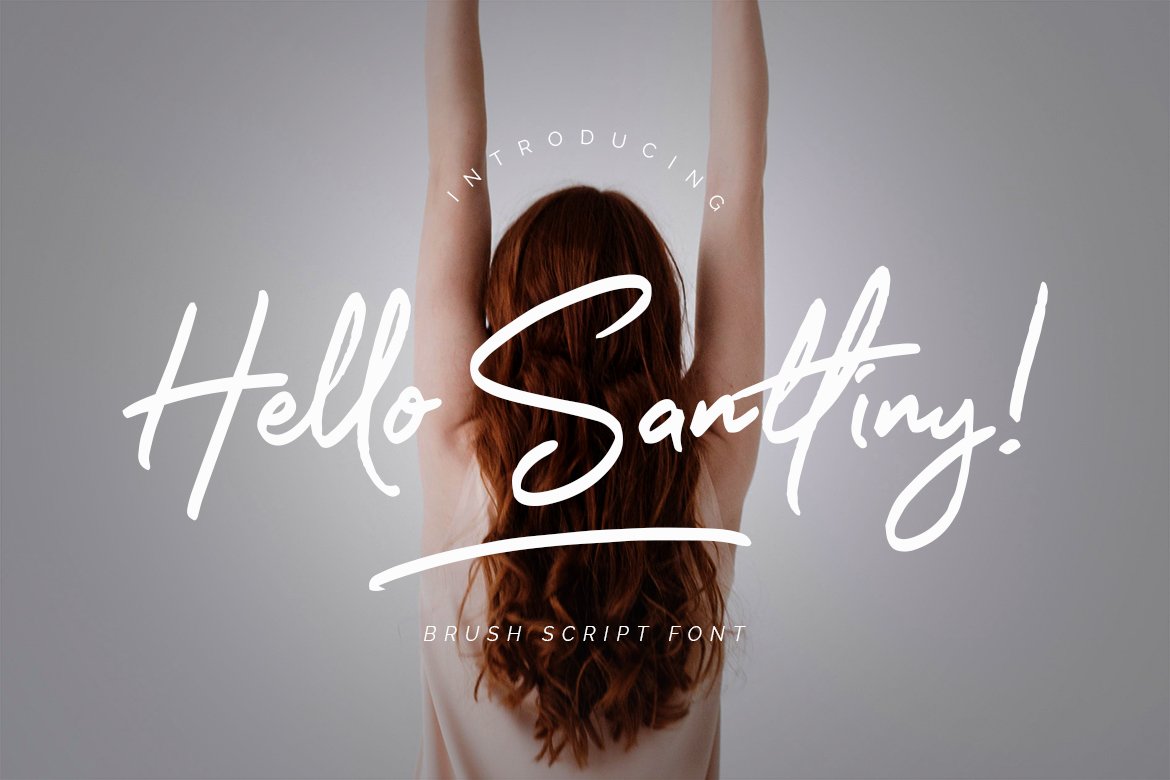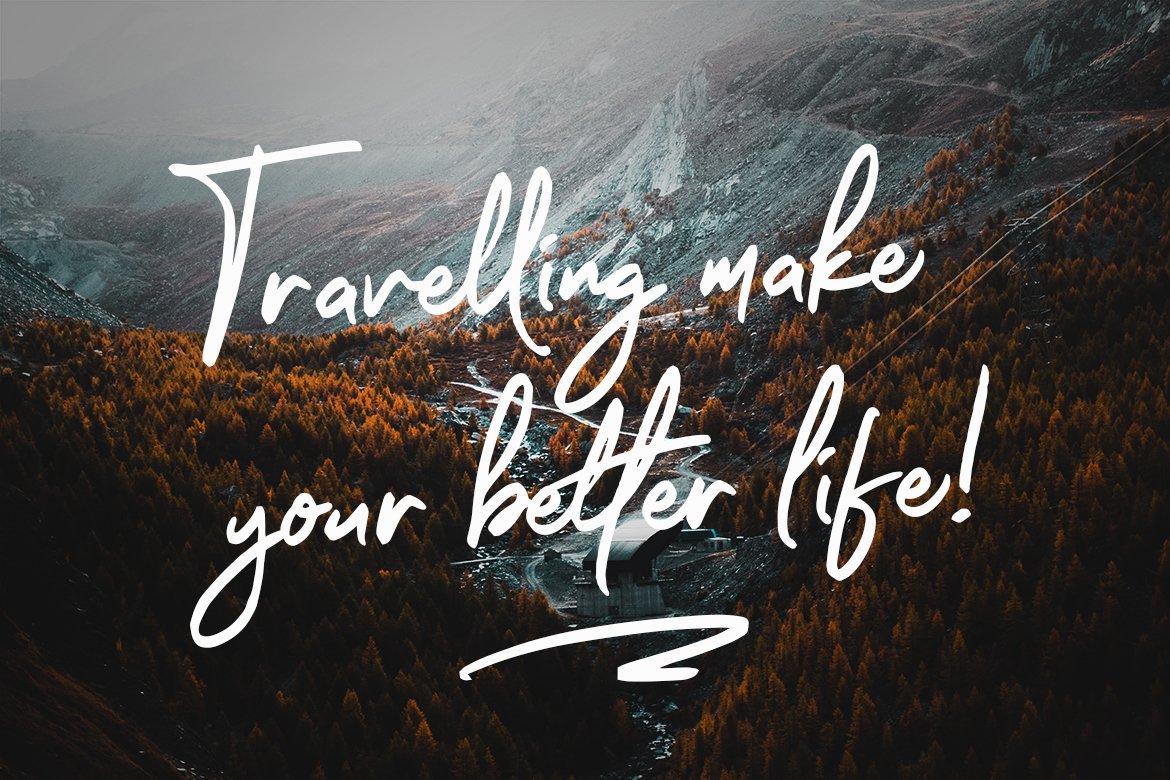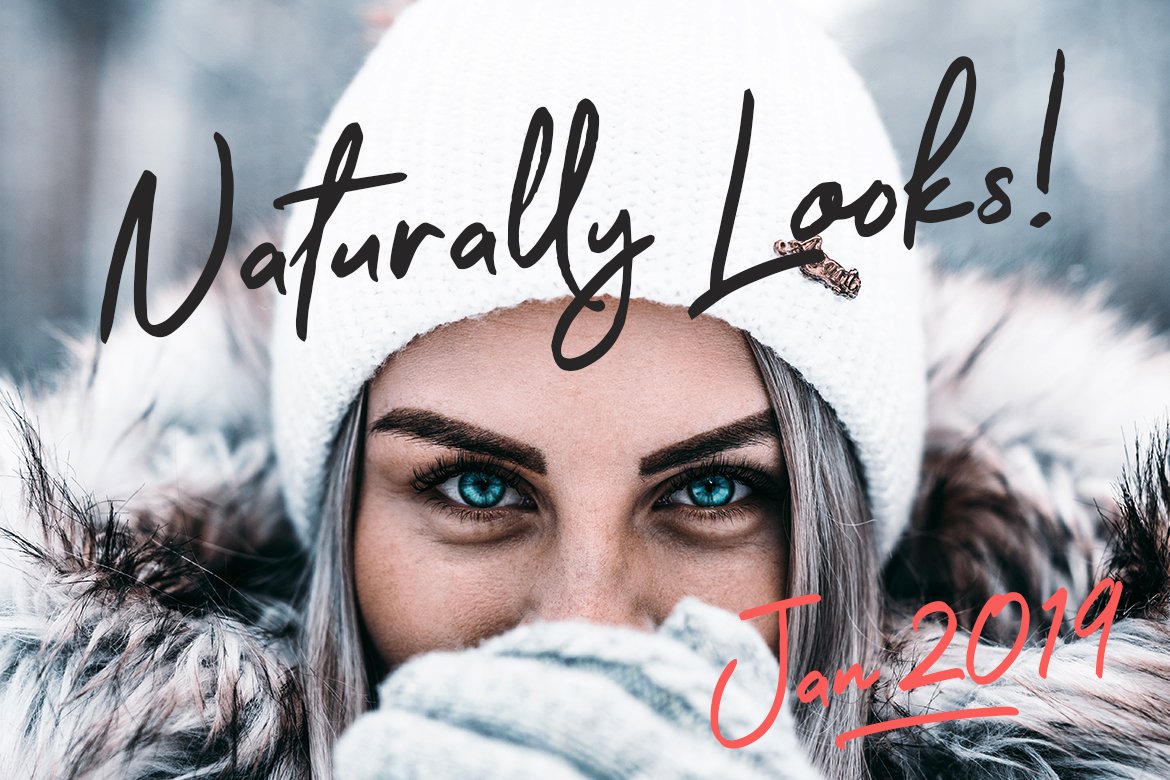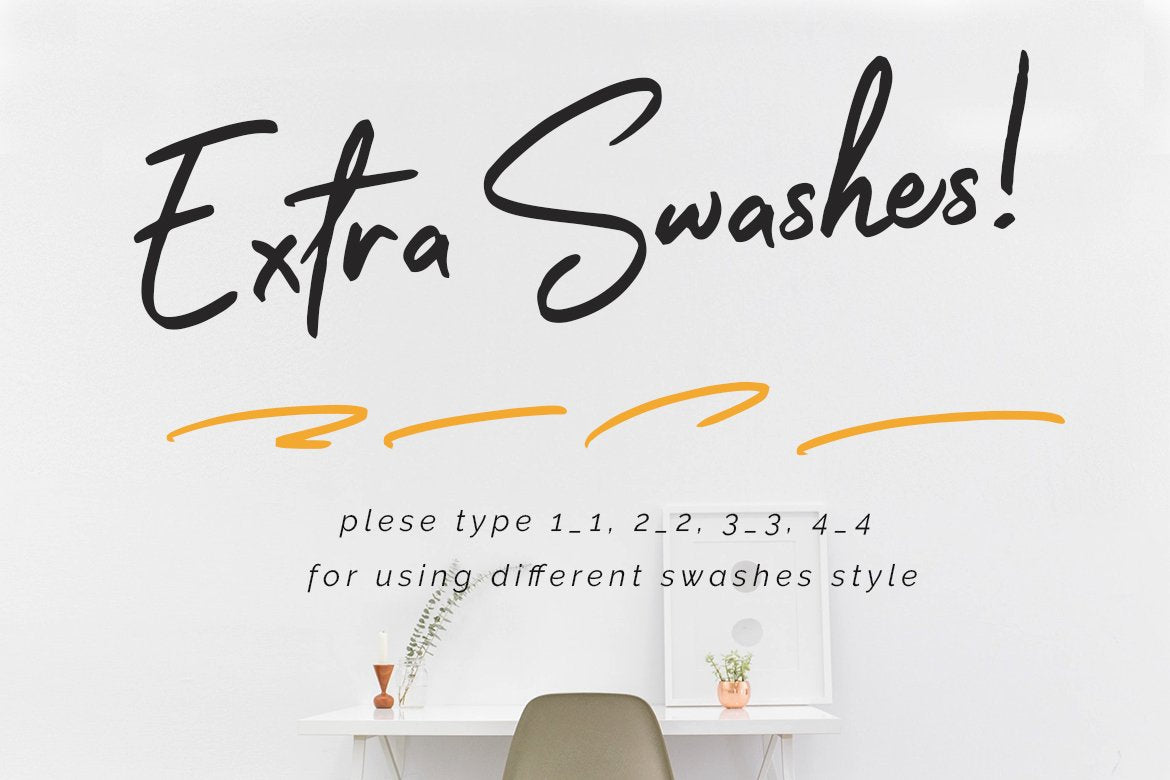
Featuring a Hello Santtiny - Free Brush Script Font. This is a downloadable free font file brought to you by Creatype Studio. Amaze your fellow designers and create stunning designs with this fancy font.